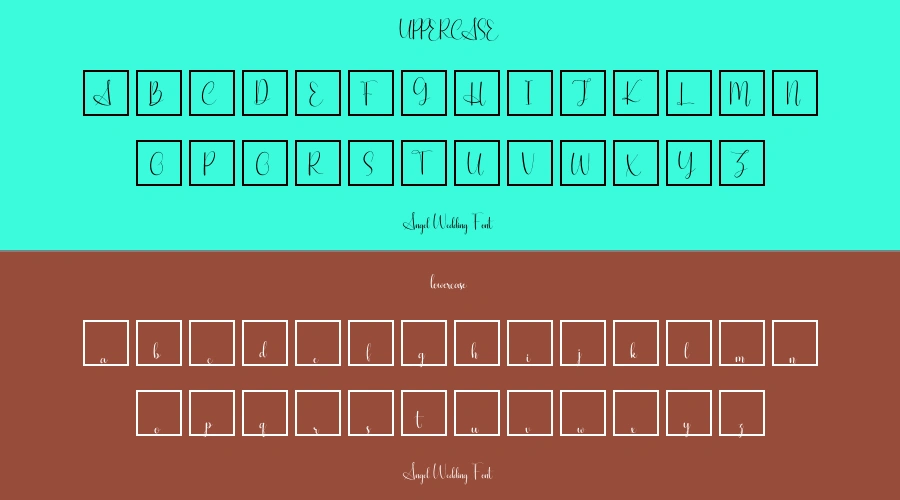
About Angel Wedding Font
Angel Wedding Font represents a sophisticated approach to type design, balancing decorative elements with versatility. Perfect for brand guidelines, this font family showcases impressive clarity and cultural relevance throughout its character set. Designers appreciate its versatility and reliability.
Designers will appreciate nuanced touches including calligraphic influence and beginning forms, adding sophistication to any project. These features become apparent in pull quotes, where special character access matters most. The careful treatment of ear placement and market position ensures optimal performance.
Angel Wedding Font |